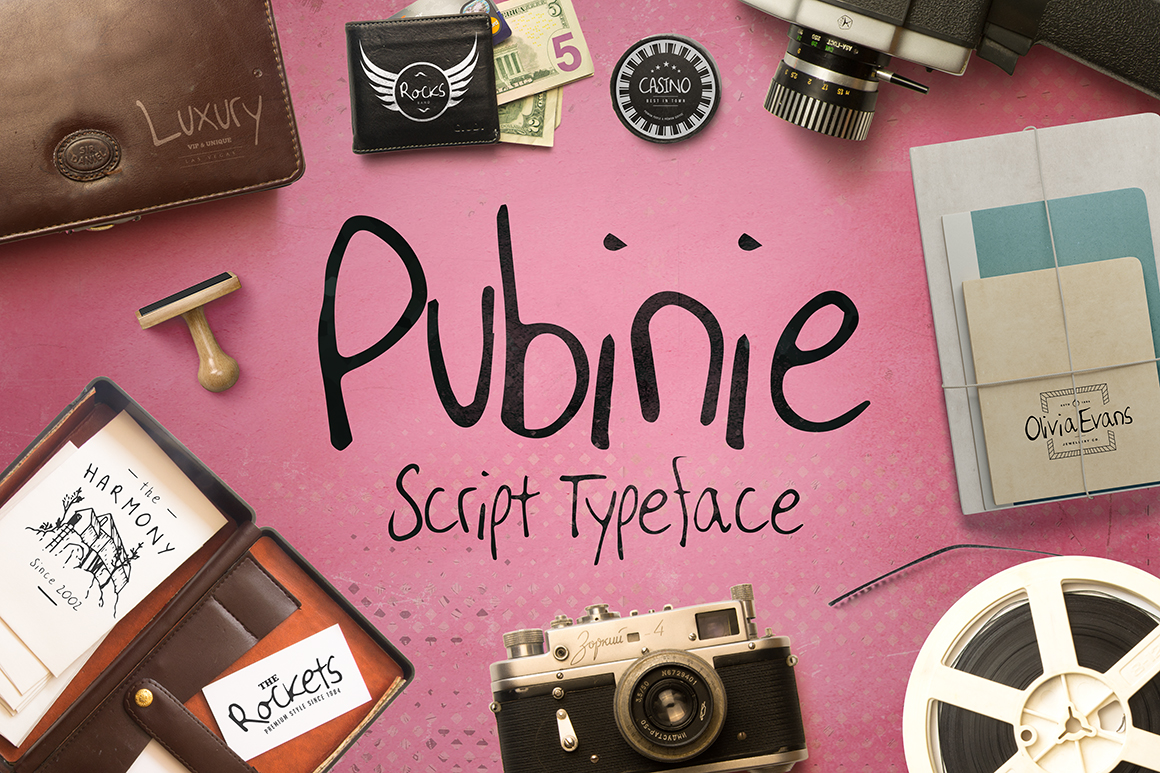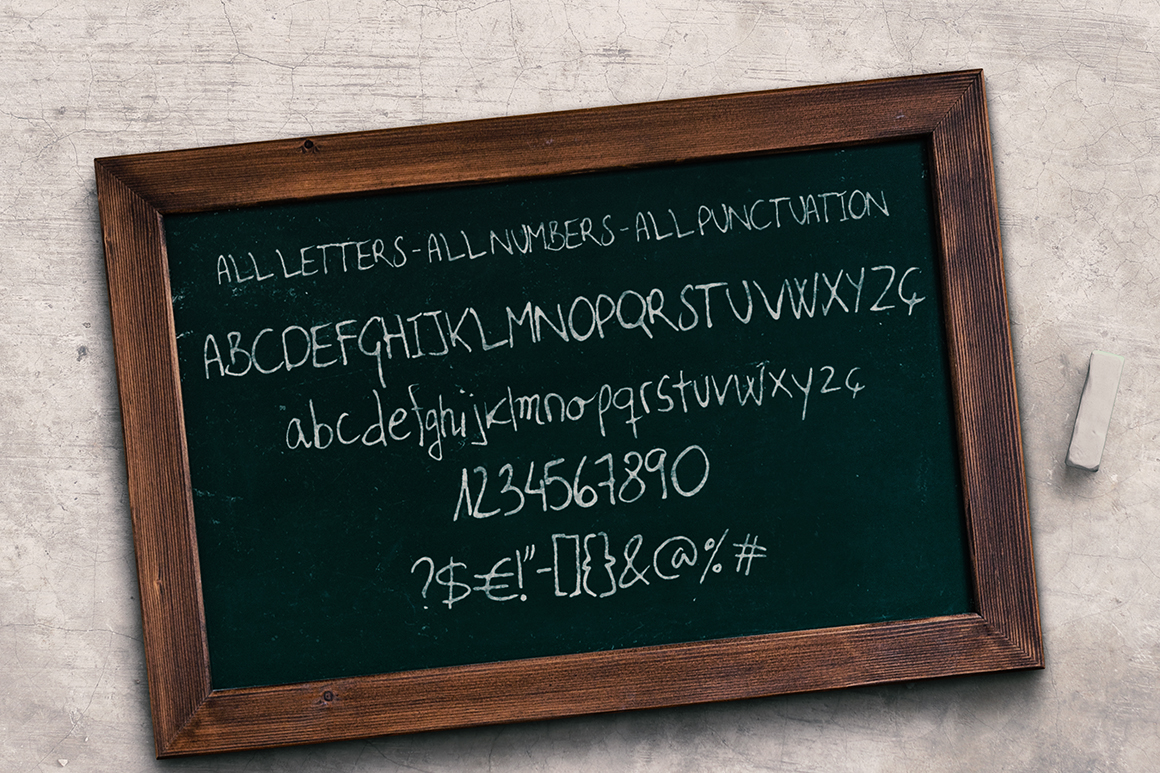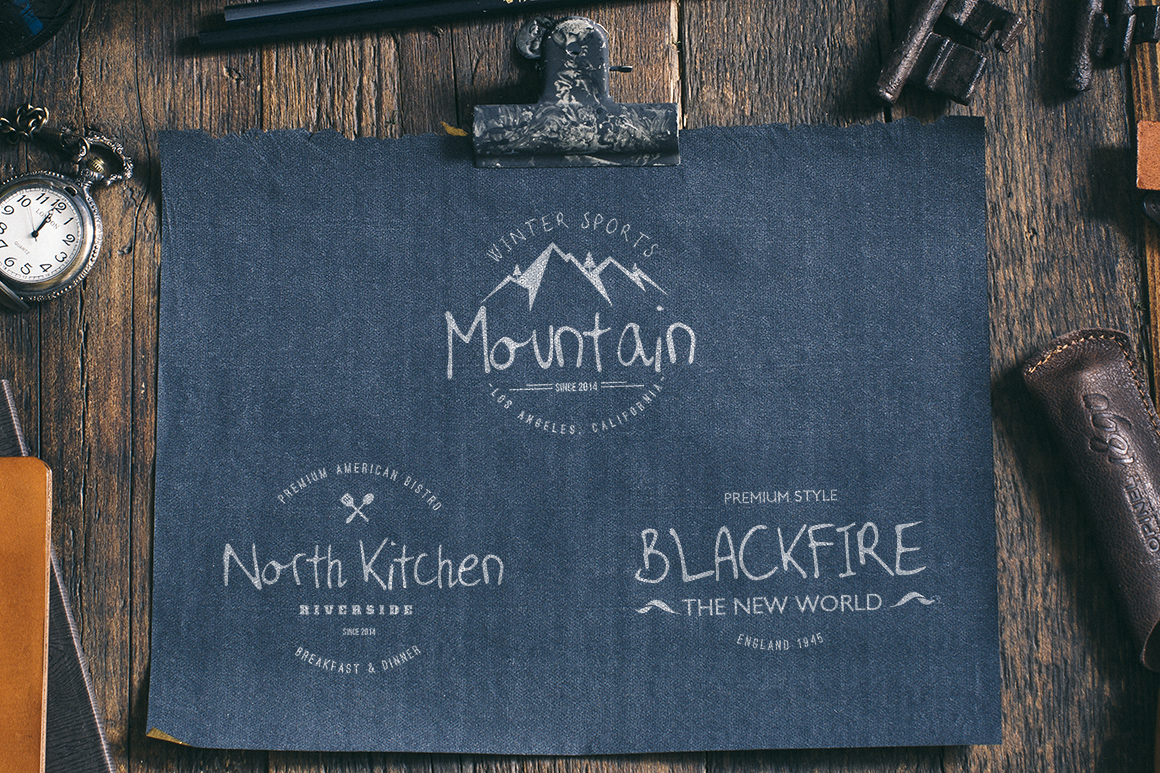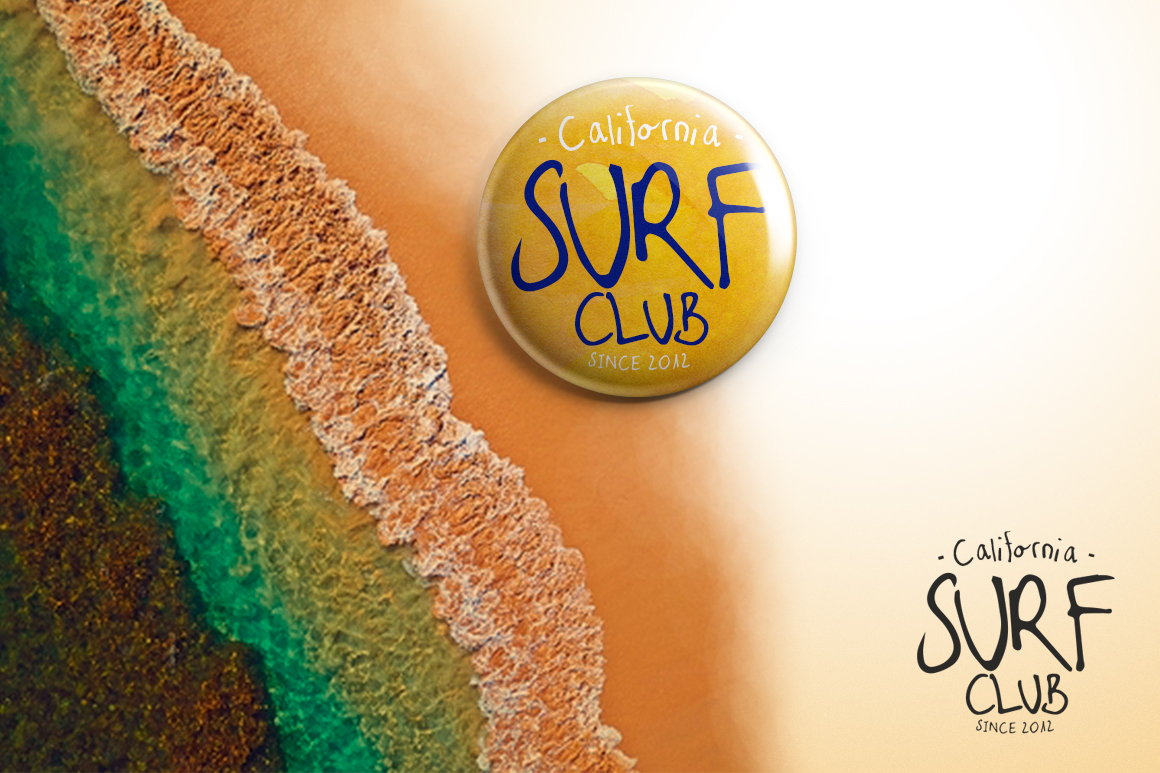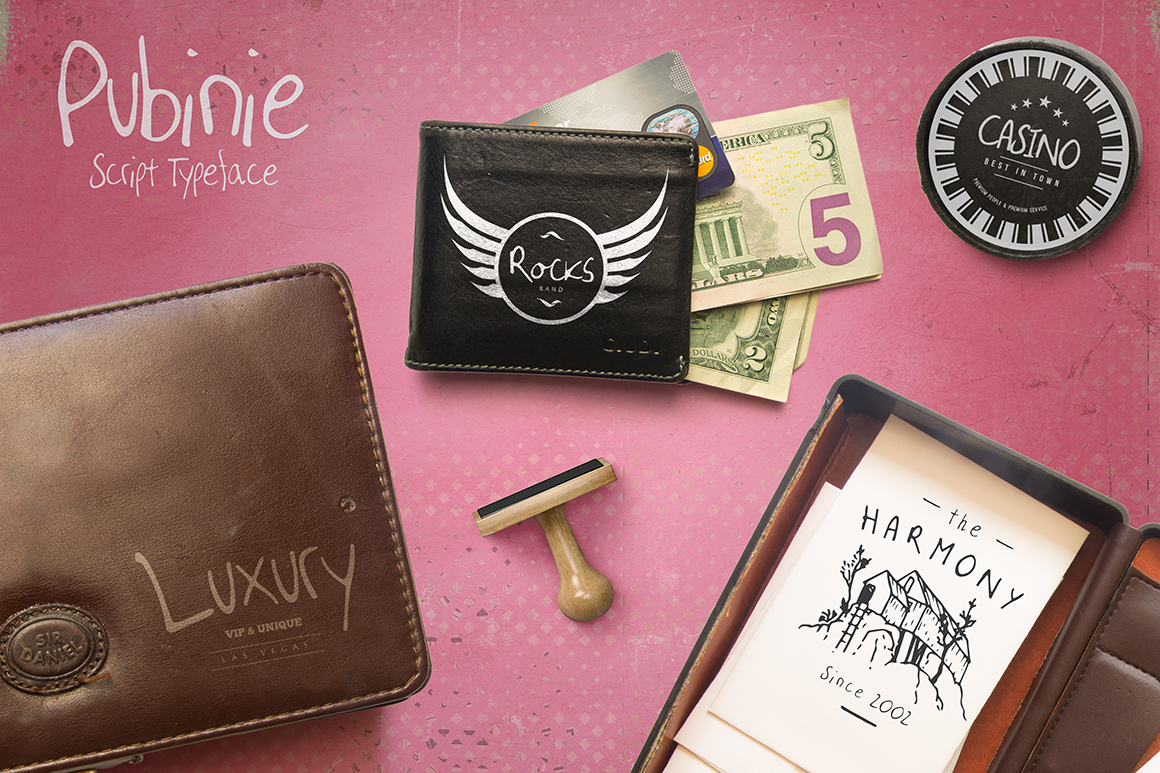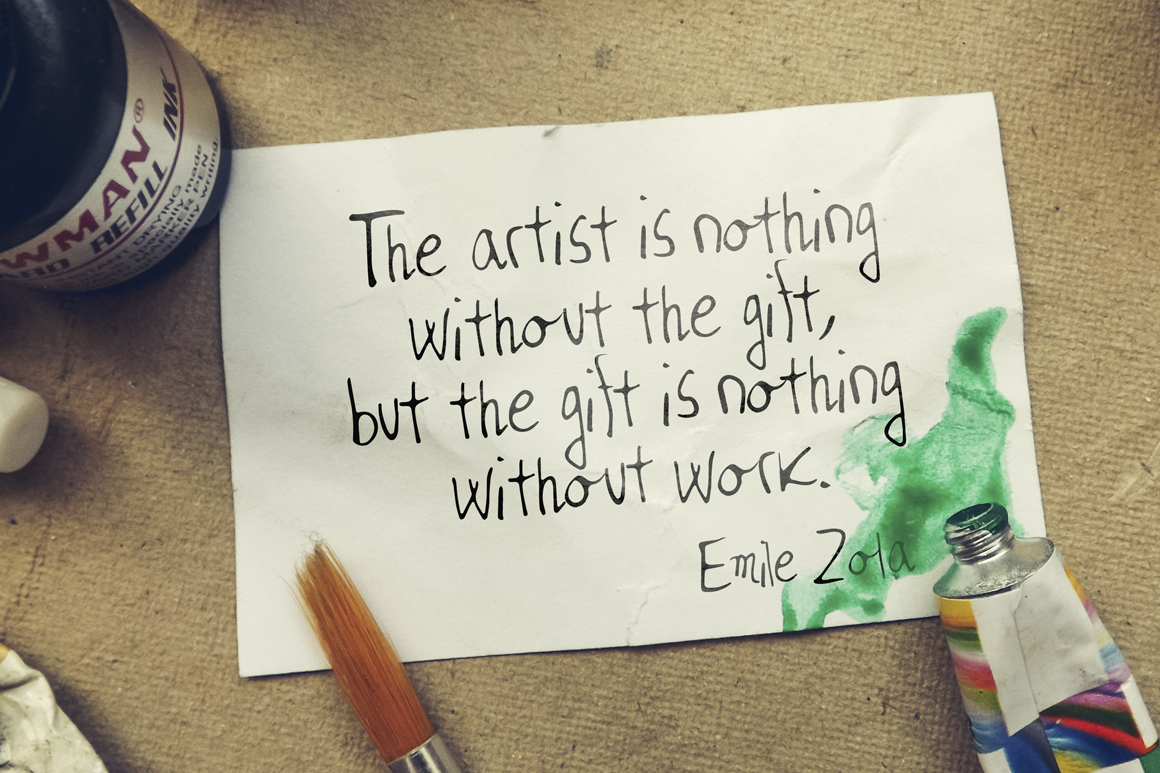
Pubinie Font
About Pubinie Font
Pubinie is a sweet, delecate font that is created with very thin lines.
Even though the lines are thin, it doesn’t feel fragile but actually very clean. Because the font has been hand-drawn it has a very playful feeling to it.